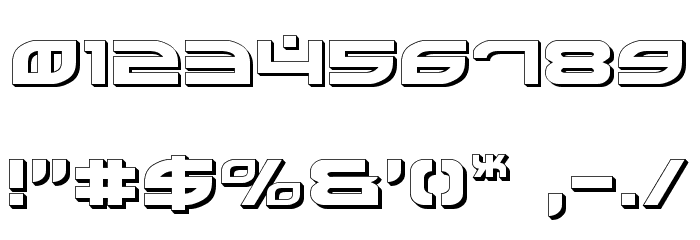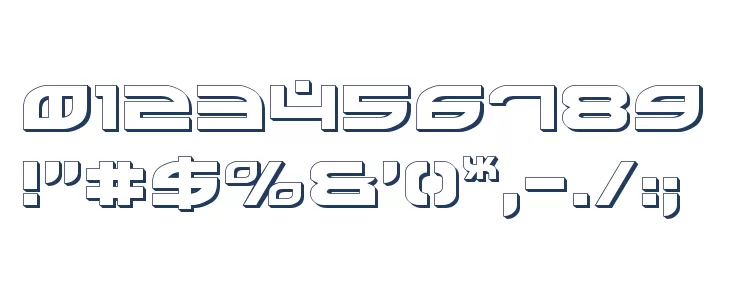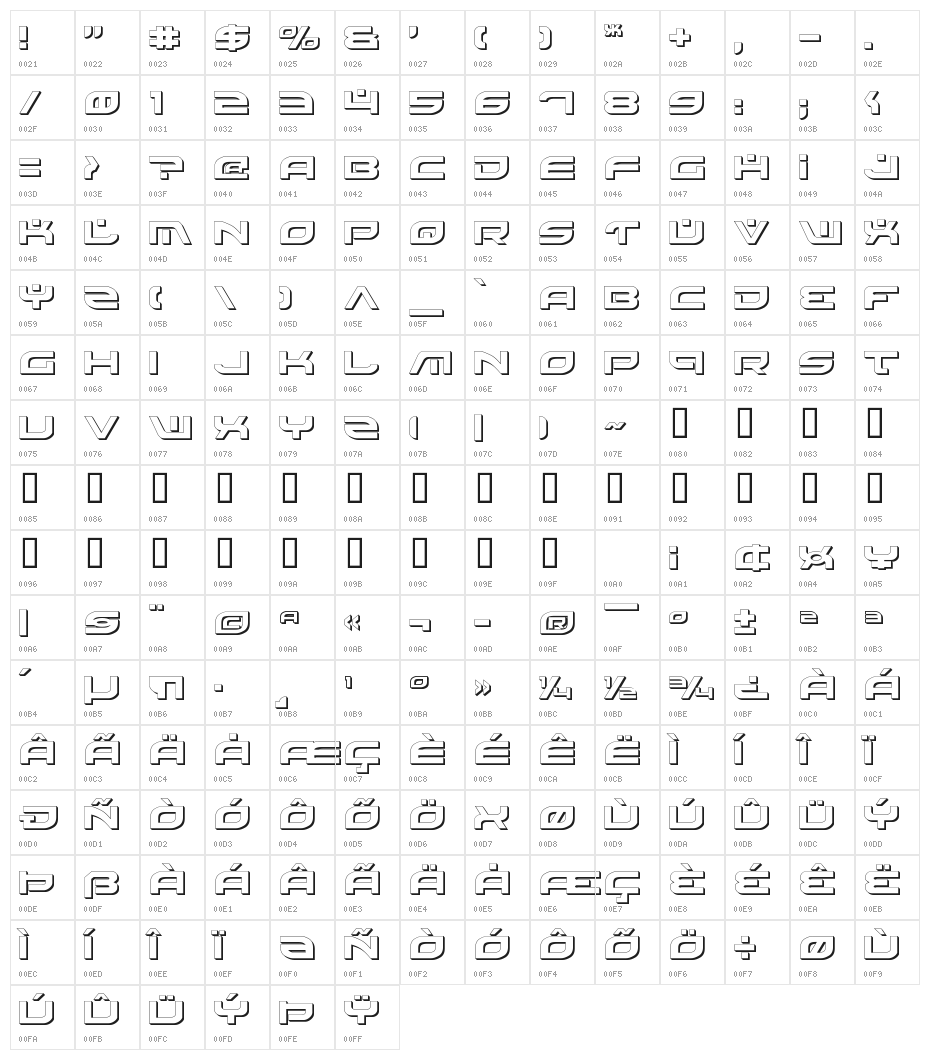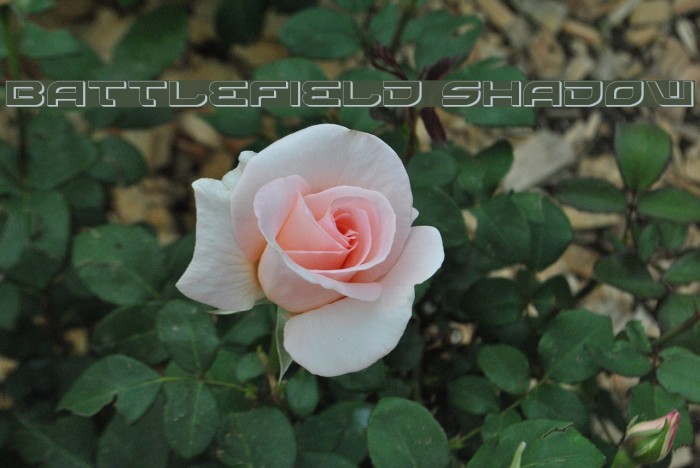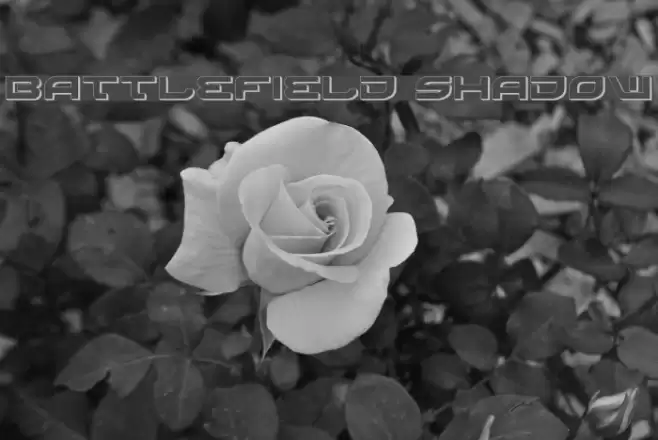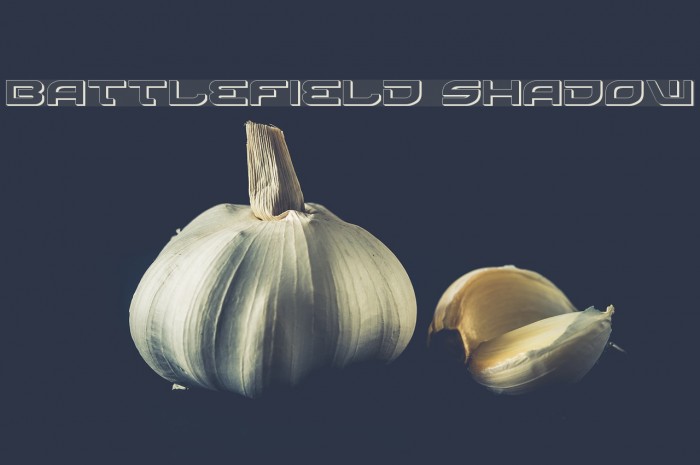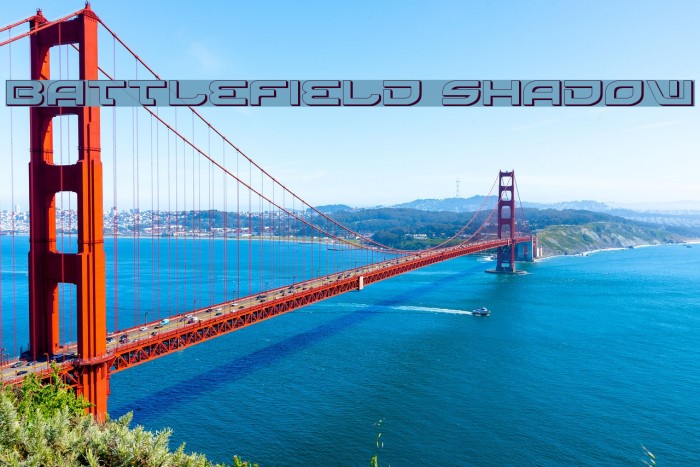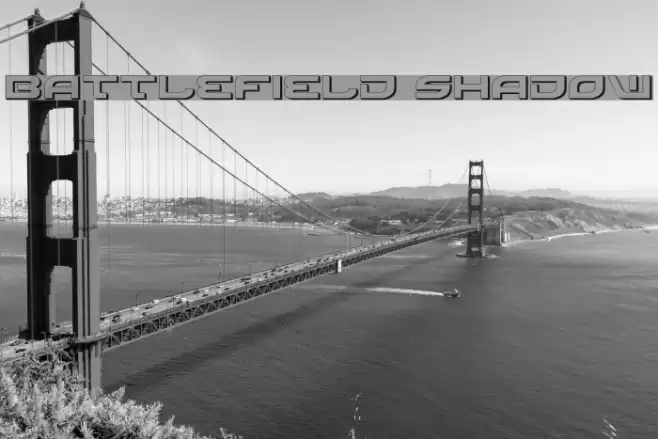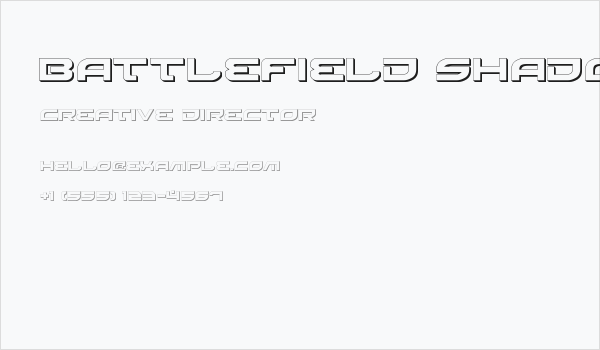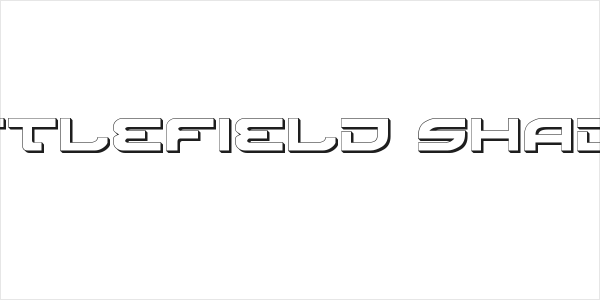
Battlefield Shadow Font
Battlefield Shadow Description
This font features a bold, futuristic design with a distinct shadow effect that gives it a three-dimensional appearance. The characters are geometric and angular, with sharp edges and clean lines that create a modern and dynamic look. The uppercase and lowercase letters maintain a consistent style, while the numerals and special characters are designed to complement the overall aesthetic. The font's unique shadowing adds depth and visual interest, making it stand out in any design project.
| Proposed Projects | Ideal for video game titles, sci-fi movie posters, tech branding, and futuristic-themed designs. |